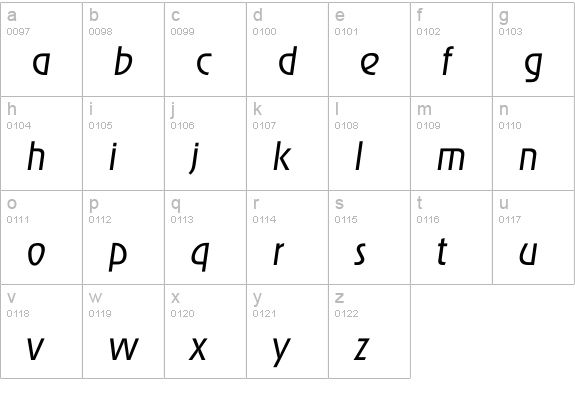
Iragtime Light is a refined, elegant variant in the Iragtime typeface family \xE2\x80\x94 well suited to elegant body text, refined sub-headings, and luxury branding.
Introducing Iragtime Light, a captivating and elegant font that effortlessly combines modern simplicity with a touch of vintage charm. Its sleek lines and delicate curves create a harmonious balance, making it perfect for a wide range of design projects. With its light weight, Iragtime Light exudes a sense of sophistication and refinement. Whether used for headlines, logos, or body text, this font adds a touch of class to any design. Its versatility allows it to seamlessly adapt to both print and digital applications, making it a valuable asset for graphic designers, web developers, and typographers alike. One of the greatest aspects of Iragtime Light is that it is available for free. Yes, you read that right - this exceptional font can be freely downloaded at FontsMarket.com. We believe that great design should be accessible to all, and that is why we are thrilled to offer Iragtime Light as a complimentary resource. So, whether you are a professional designer looking to enhance your portfolio or a creative enthusiast exploring new typographic possibilities, Iragtime Light is the perfect choice. Its timeless appeal and effortless elegance will undoubtedly elevate your designs to new heights. Don't miss out on this incredible opportunity to add a touch of sophistication to your projects - download Iragtime Light today and let your creativity shine!